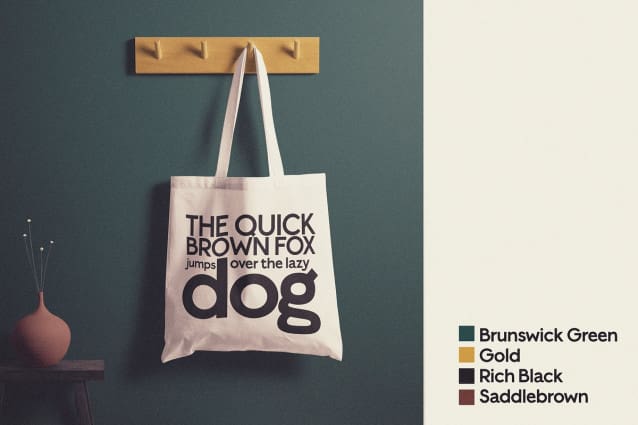
Grotesk Grotesque Font
Grotesk Grotesque Font takes its inspiration from the 19th and early 20th century advertising grotesques. It has a very likable handmade feel to it, almost pen-like.